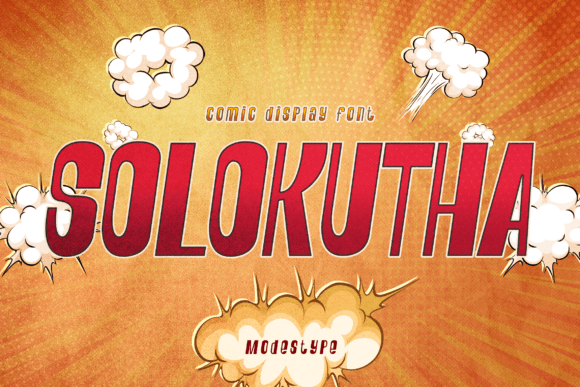
Solokutha: A Pop Art Font with 80s Vibes
Solokutha is more than just a fontβit's a nostalgic trip back to the vibrant, bold days of the 1980s. This comic display font captures the essence of pop art with its playful yet sophisticated design. Whether you're working on a retro-themed project or looking to add a unique flair to your creative work, Solokutha brings a smile and a sense of fun that resonates with both designers and audiences alike.
With its dynamic shapes and exaggerated strokes, Solokutha exudes energy and personality. It's not just about looking good; it's about making a statement. The font's visual characteristics are reminiscent of classic comic book lettering, giving it a distinctive edge that stands out in any design context. Its boldness and charm make it ideal for projects that aim to capture attention and evoke emotion.
Where Solokutha Shines
Solokutha thrives in environments where creativity and expression are key. From pop culture books to online games, this font fits seamlessly into various mediums. Its versatility allows it to be used in everything from teen event posters to school supplies, making it a go-to choice for designers looking to add a touch of 80s nostalgia to their work.
In the realm of digital design, Solokutha excels as a font for YouTube covers and thumbnails. Its eye-catching style helps content creators stand out in a crowded space, while also reflecting the playful nature of their videos. Social media page covers benefit from its bold presence, offering a fresh and engaging look that aligns with modern design trends.
For print projects, Solokutha adds a layer of authenticity that can elevate anything from movie titles to packaging designs. Its ability to convey a sense of fun and nostalgia makes it a valuable asset in branding and marketing campaigns aimed at younger demographics. Whether you're designing a poster for a local event or crafting a logo for a new business, Solokutha provides a unique visual identity that's hard to ignore.
The Impact of Solokutha on Design
When it comes to readability, Solokutha strikes a balance between being expressive and legible. While it's primarily a display font, its clear structure ensures that it remains readable even in smaller sizes. This makes it suitable for a range of applications, from headlines to captions, where clarity is essential without sacrificing style.
In terms of visual hierarchy, Solokutha can be used to draw attention to key elements within a design. Its boldness helps to establish a clear focal point, guiding the viewer's eye through the composition. This is particularly useful in editorial design, where effective communication is crucial.
Solokutha also plays a role in shaping brand perception. By incorporating this font into your design work, you can create a consistent and recognizable identity that aligns with your brand's values. Its playful yet professional appearance can help to build trust and engagement with your audience, making it an excellent choice for businesses looking to connect with their target market.
Choosing the Right Font for Your Project
Selecting the right font involves more than just aesthetics; it's about understanding how the font will perform in different contexts. When considering Solokutha, it's important to evaluate how it complements your overall design concept. Does it enhance the message you're trying to convey? Will it resonate with your intended audience?
Font pairing is another crucial aspect to consider. Solokutha works well with other fonts that share its energetic and expressive qualities. For example, pairing it with a clean sans serif font can create a balanced and modern look, while combining it with a script font can add a touch of elegance and sophistication.
Before finalizing your design, it's advisable to test Solokutha in various scenarios. This includes checking its readability across different devices and screen sizes, ensuring that it maintains its impact in both digital and print formats. Additionally, reviewing the included styles of the font can help you determine which variations best suit your project's needs.
Practical Applications of Solokutha
Solokutha is a versatile tool that can be applied to a wide range of creative projects. For instance, in the world of web design, it can be used to create visually striking headers and banners that grab attention and reflect the tone of the website. Its bold style makes it an excellent choice for landing pages that aim to make a strong first impression.
In the field of packaging design, Solokutha can be used to create eye-catching labels and product names that stand out on store shelves. Its playful nature can help to differentiate a product from its competitors, making it easier for consumers to remember and recognize.
For content creators, Solokutha offers a way to add personality to their work. Whether it's for a blog post, a social media graphic, or a video thumbnail, this font can help to convey the tone and style of the content. Its ability to evoke a sense of fun and nostalgia makes it a valuable asset in any designer's toolkit.
Ultimately, Solokutha is more than just a fontβit's a reflection of the 80s era, bringing with it a sense of joy and creativity. Its unique blend of boldness and charm makes it an ideal choice for anyone looking to infuse their work with a touch of retro flair. Whether you're a designer, marketer, or content creator, Solokutha has the potential to elevate your projects and leave a lasting impression on your audience.